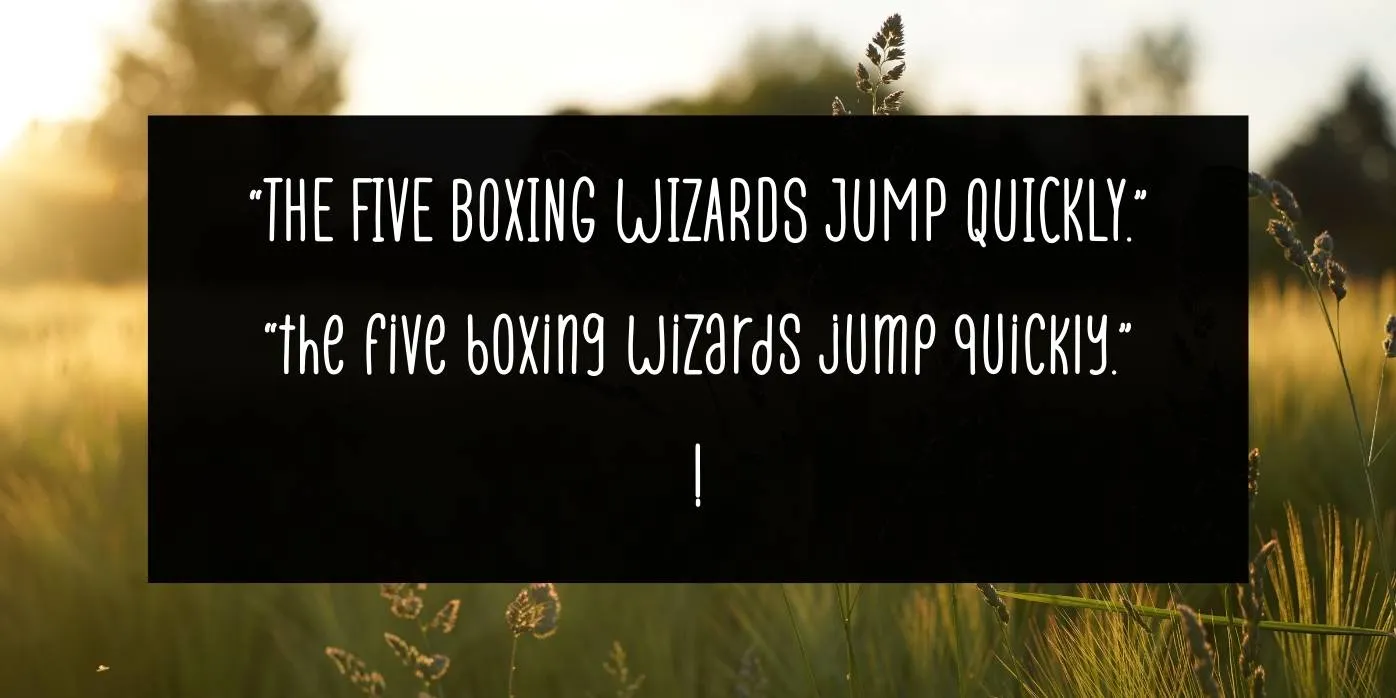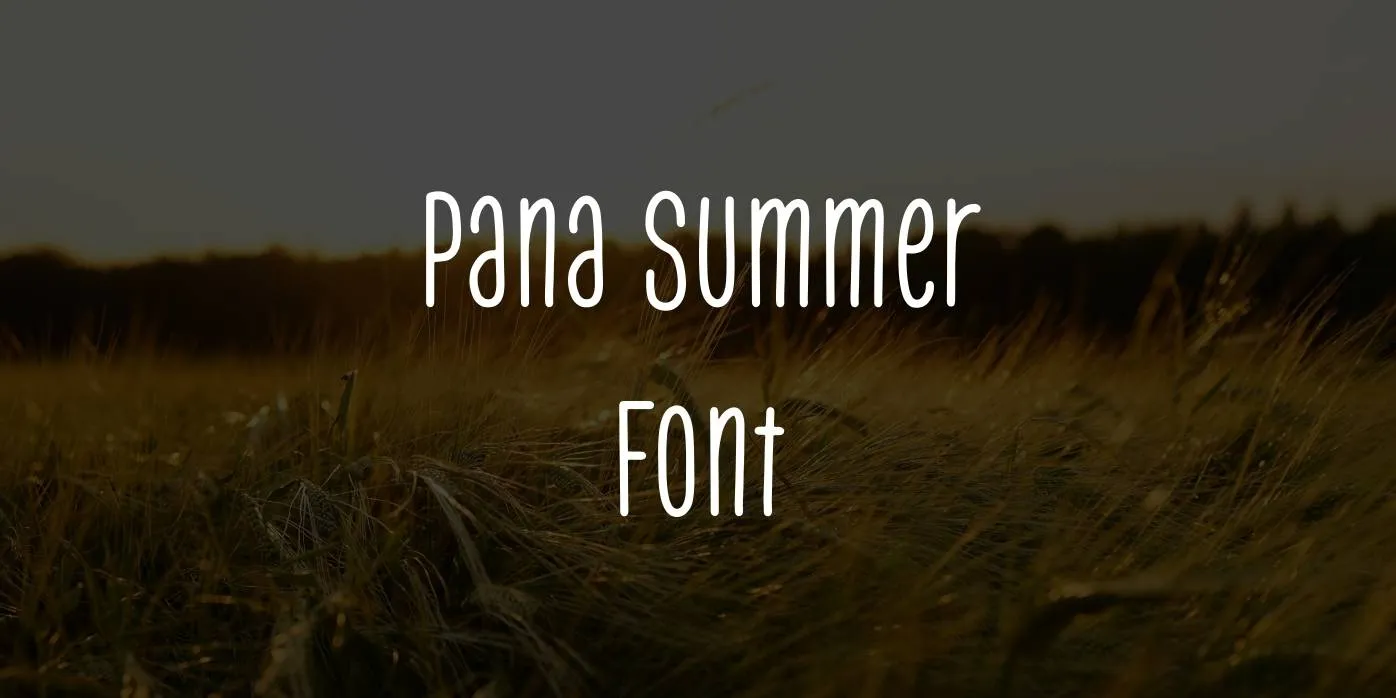
Pana Summer Font
Pana Summer Font is a script typeface designed by Erik Spiekermann and released through his foundry, Spiekermann & Associates, in 1993. The design is a humanist typeface, inspired by the work of Jan van den Berghe. It includes a wide range of weights, from ultra-light to black, as well as a condensed width. The typeface is used extensively by Pentagram, the international design consultancy founded by Spiekermann.
You can also try the serpentine font in your specific designs that have amazing powerful characters and a pair nature. This font has been used by a wide range of companies and organizations. The glyph of this font is unique which helps to give the designs a personal touch. This font is a typeface that is perfect for summer.
This font is light, airy, and has a natural feel to it. The shapes of the letters are simple and organic, making them easy to read.